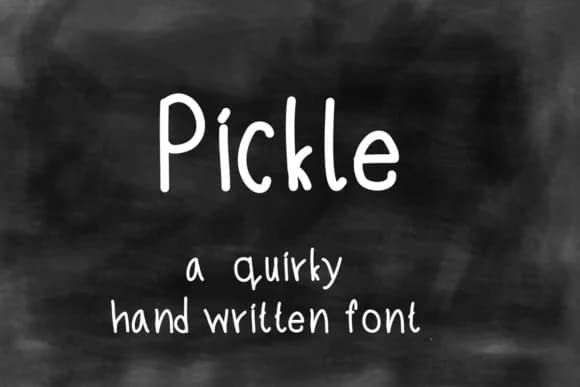
You're laying out a birthday card for someone you actually like, and you need a font that looks hand-lettered without the smudge factor. Pickle, designed by ashley_lynne18, captures that genuine handwritten character by keeping slightly irregular letterforms that make script feel authentically human rather than mechanical. It's the kind of quirky script that works beautifully for artisanal jam labels, casual wedding invitation suites, or personalized thank-you cards you want people to keep. Designers also reach for it when creating DIY vinyl decal sets, distinctive boutique skincare packaging, and small-batch sticker sheets for independent makers.
What keeps Pickle from feeling like every other handwritten font is the confidence in its lines. Letterforms stay authentic without tipping into overly precious territory, and they read clearly even at smaller sizes when you're printing labels or product tags. Hand-drawn energy comes through without sacrificing legibility, making it practical for real commercial work as much as personal projects. It scales beautifully at large sizes too, handling everything from poster text to custom logo letterforms without losing that handwritten warmth.
Pickle Font is a script font that shines as a display or heading face. Pair it with a clean sans-serif or serif font for body text β the contrast creates a clear hierarchy while the two styles stay balanced and easy to read.